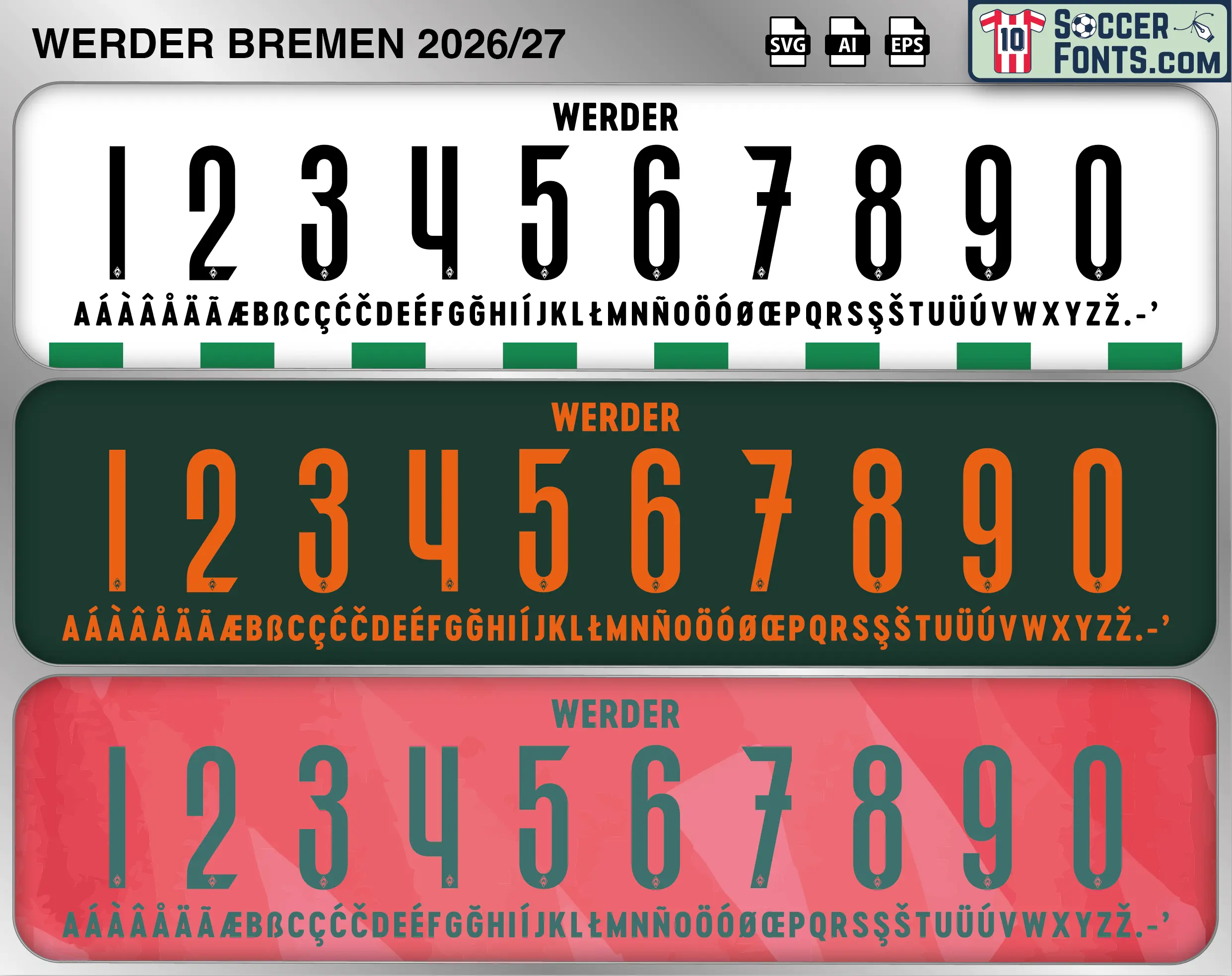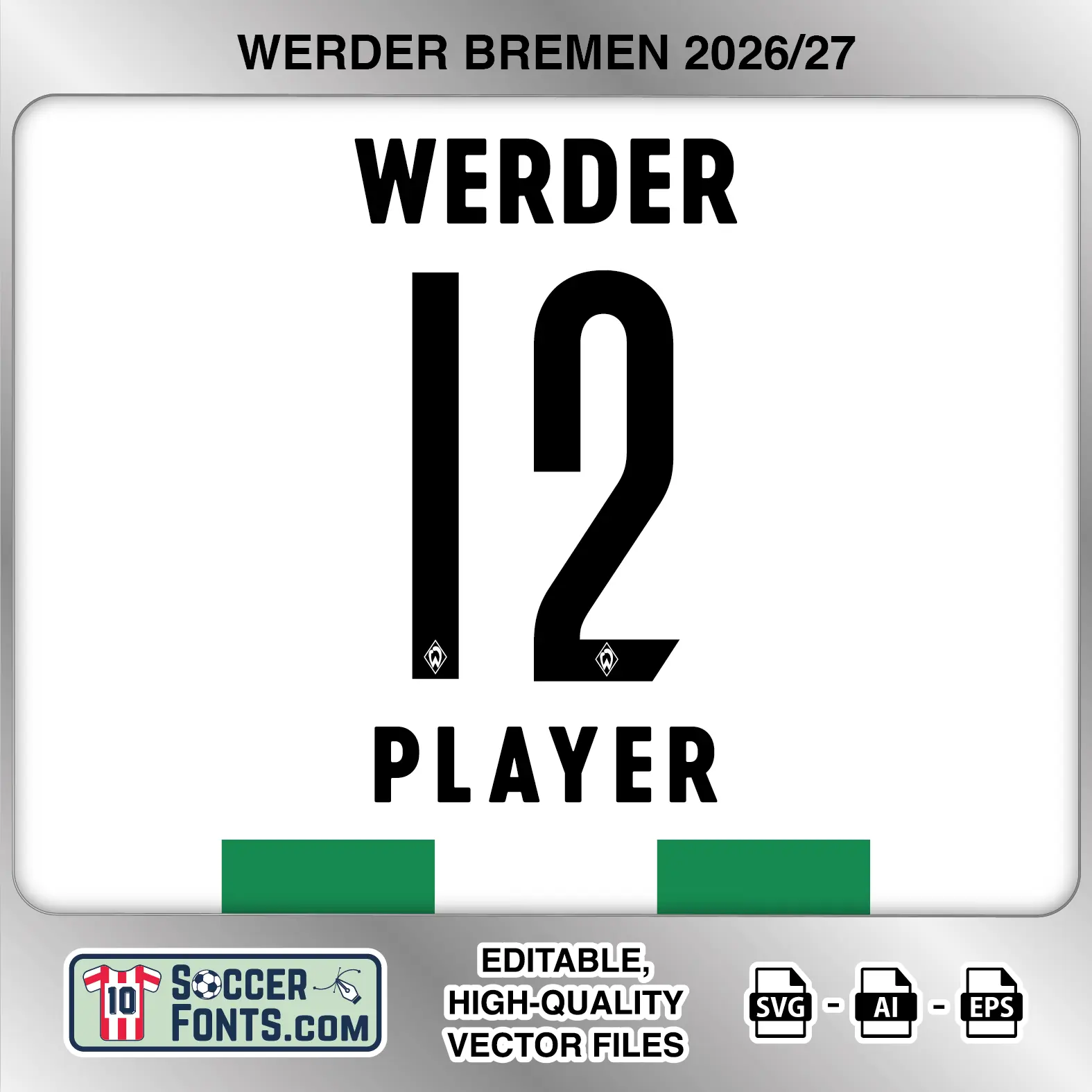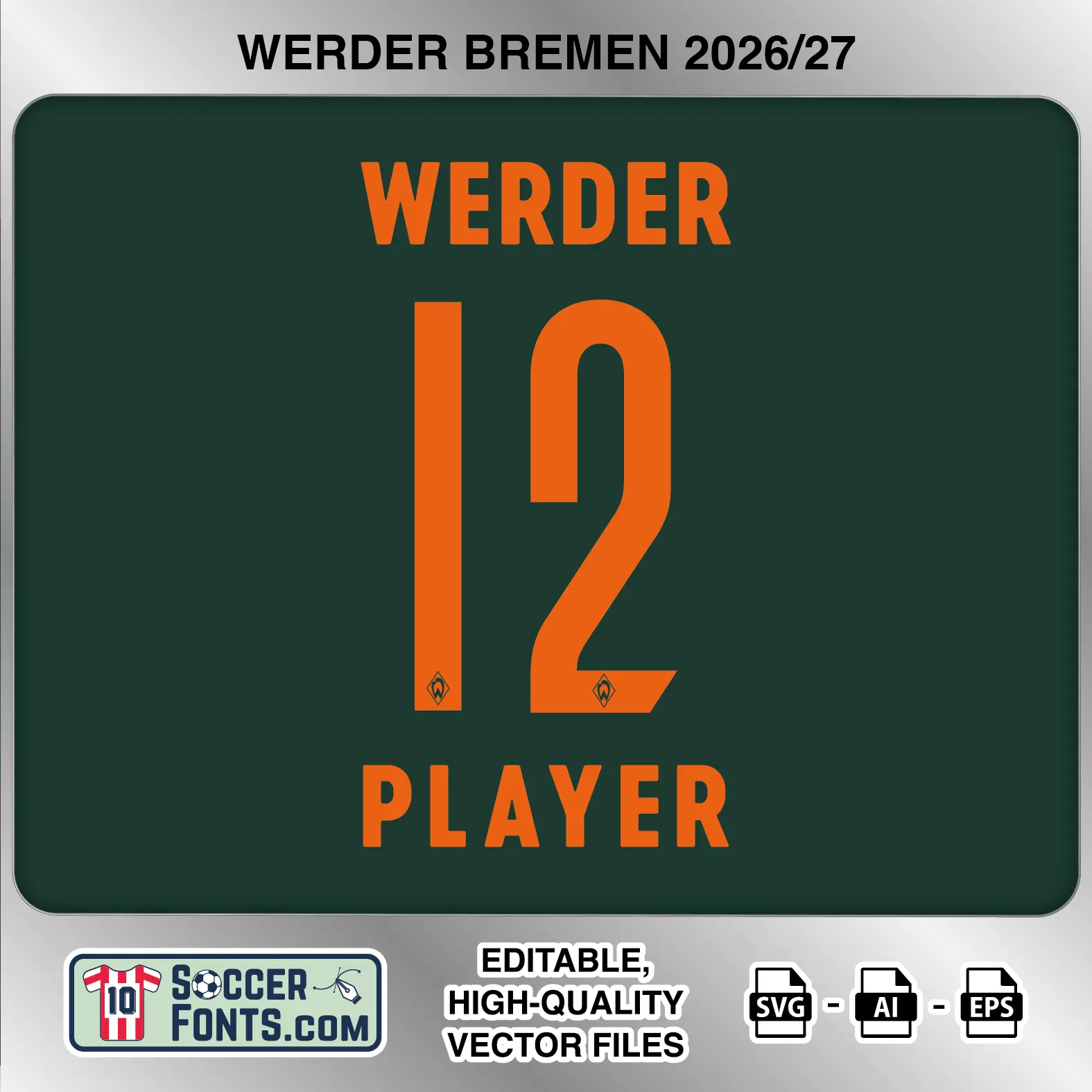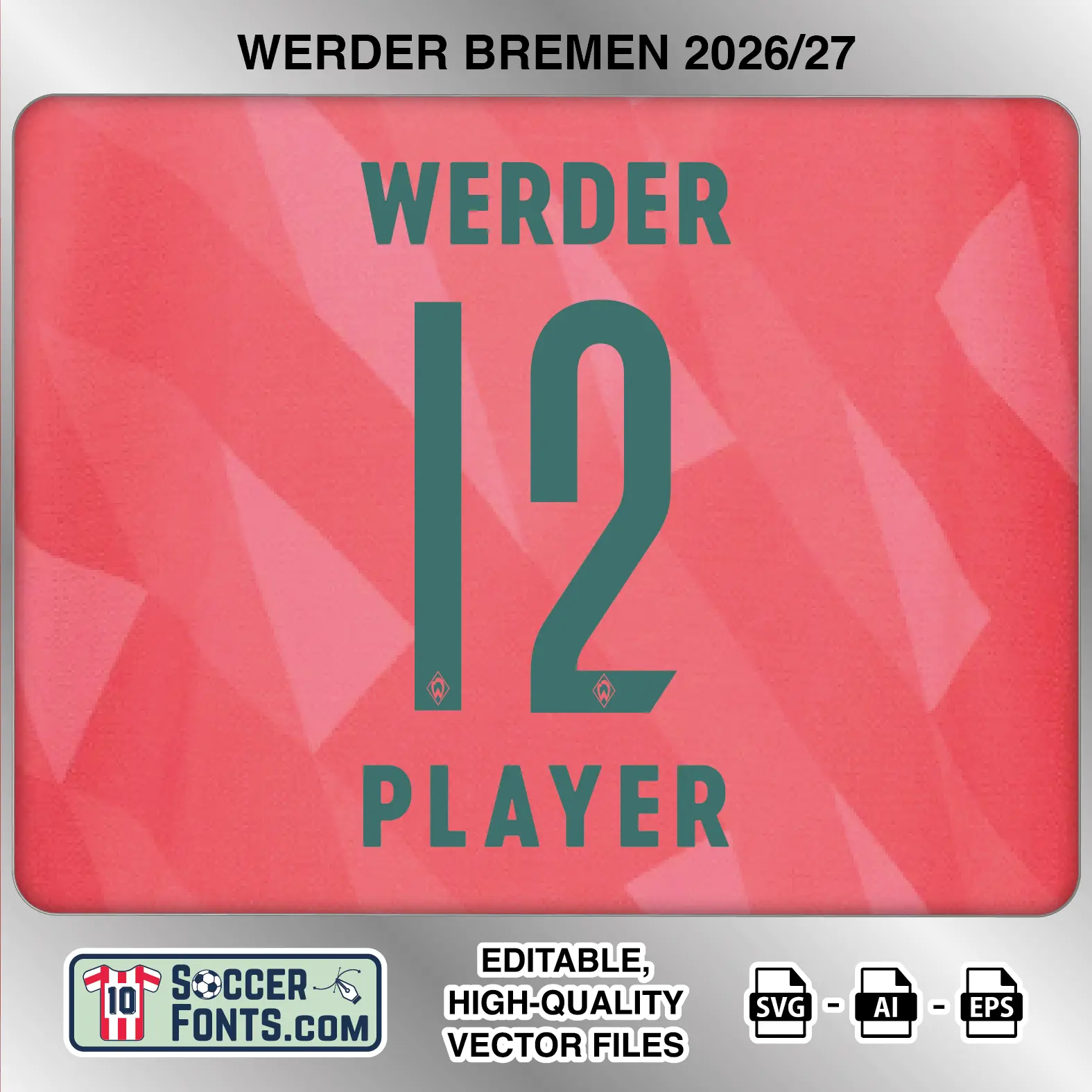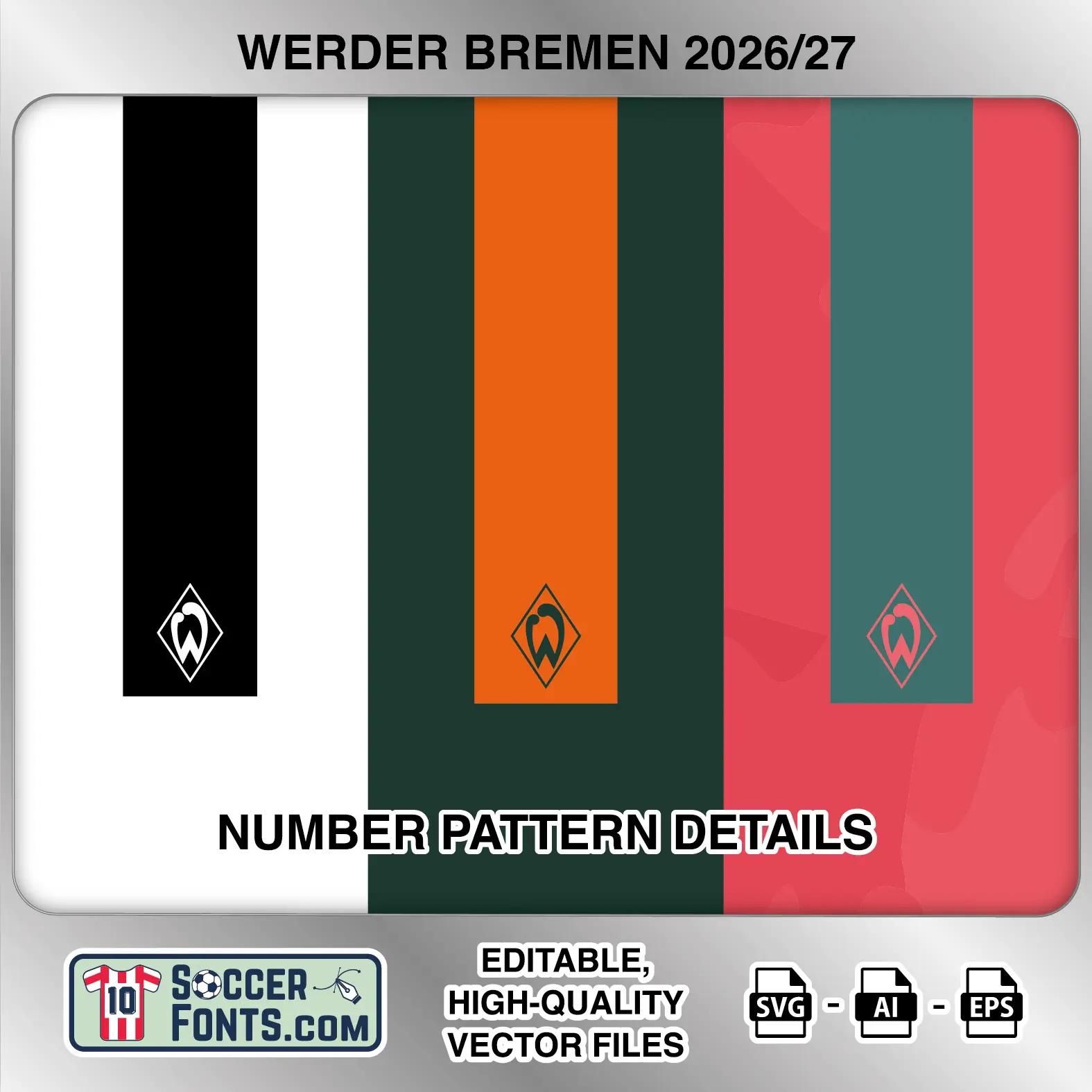
About Werder Bremen 2026-27 Font
Download Werder Bremen 2026-27 font, an editable soccer jersey lettering design in vector format inspired by the Werder Bremen home, away and third kit styles used during the 2026-27 football season. This football font artwork is prepared for football shirt recreations, custom jersey projects, football kit mockups and sports graphic design workflows.
Visual Identity of the Font Design :
The Werder Bremen 2026-27 lettering uses a tall, narrow and condensed construction shared across the three kit treatments. Player names are formed with bold uppercase characters featuring compact proportions, mostly straight vertical strokes and slightly softened corners. The numbers are considerably taller and maintain a slim profile, combining long vertical sections with rounded curves. The 1 is almost completely straight, while the 2 uses a rounded upper section that flows into a diagonal stroke and an angled lower terminal. The 4 has a distinctive open construction, and the 6, 8, 9 and 0 use elongated rounded counters. A small Werder Bremen diamond crest is positioned near the bottom of every numeral.
The home version uses black lettering and numbers on a white shirt treatment with green details. The away version changes to bright orange lettering and numbers against a deep dark-green background. The third version uses dark green lettering and numbers on a coral-red patterned background. All three versions use solid fills without external outlines or shadows, while the character set includes an extensive selection of accented uppercase letters for international player names.
Context of 2026-27 Season for Werder Bremen :
Werder Bremen entered the 2026-27 campaign for another season in the Bundesliga, continuing the club’s long-standing presence in German football. The Werder Bremen 2026-27 Font belongs to this new kit cycle, bringing a consistent lettering identity across three noticeably different shirt color combinations used throughout the campaign.
Matches against Germany’s leading clubs and traditional Bundesliga rivals provide the setting for the different 2026-27 shirts, while the club’s green-and-white identity remains central to the season. The three lettering treatments extend that palette through the contrasting black-on-white home application, the orange-on-dark-green away combination and the dark-green lettering displayed on the coral-red third design.
For football shirt collectors and kit design projects, the Werder Bremen 2026-27 Font brings the home, away and third lettering treatments together in one package. The shared condensed construction and embedded diamond emblem connect all three versions, making the Werder Bremen 2026-27 Font a complete reference for recreating the club’s 2026-27 jersey lettering.